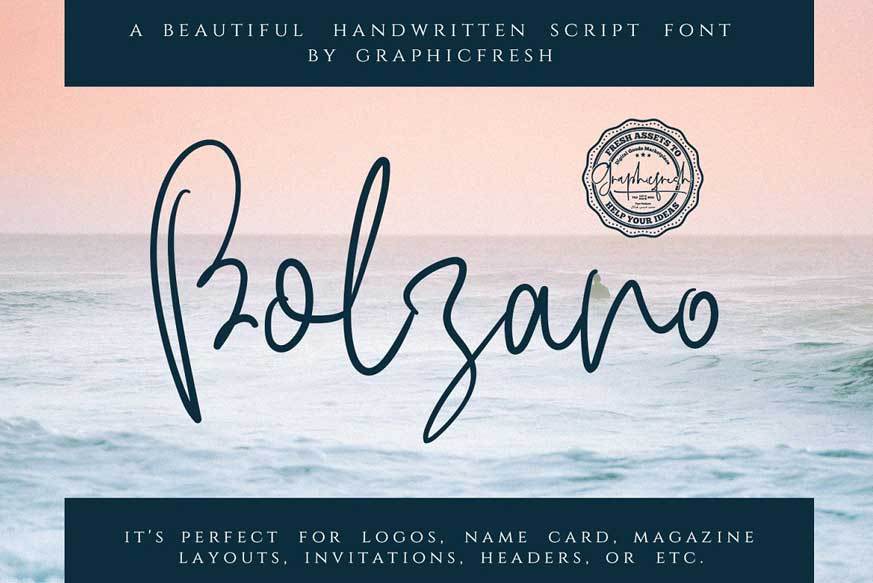
Bolzano Script Font
Introducing Bolzano – A Beautiful Script Font. It comes with an elegant and feminine style which is perfect to make any design stand out!
This font is perfect for branding, wedding invites, magazines, mugs, business cards, quotes, posters, and more.